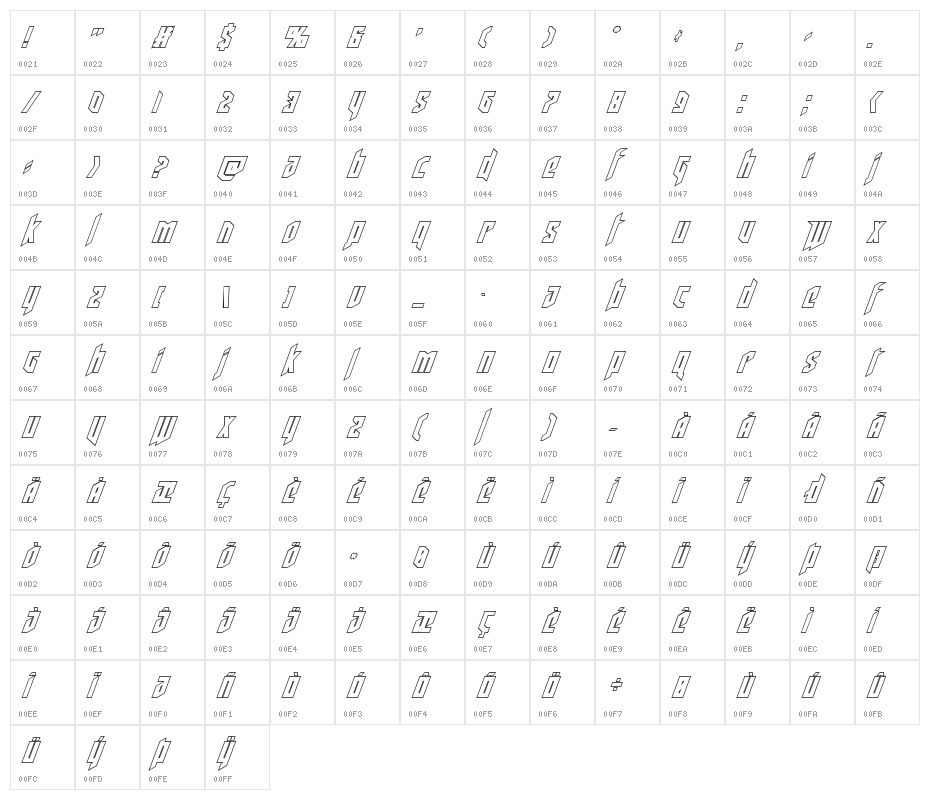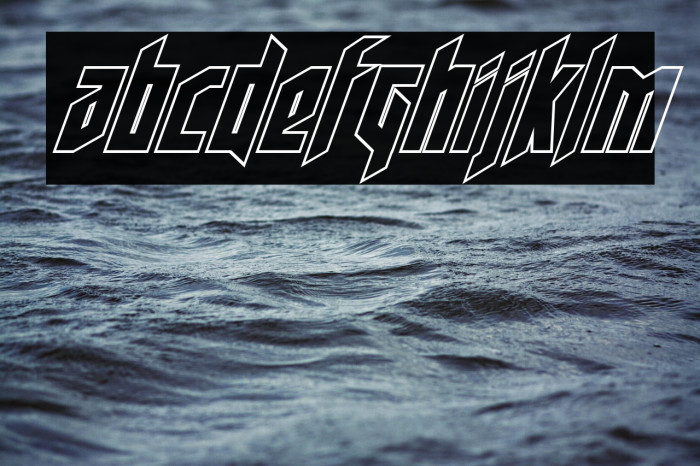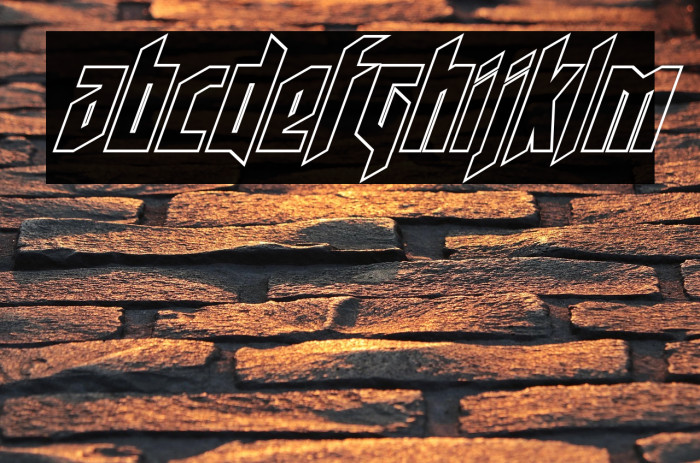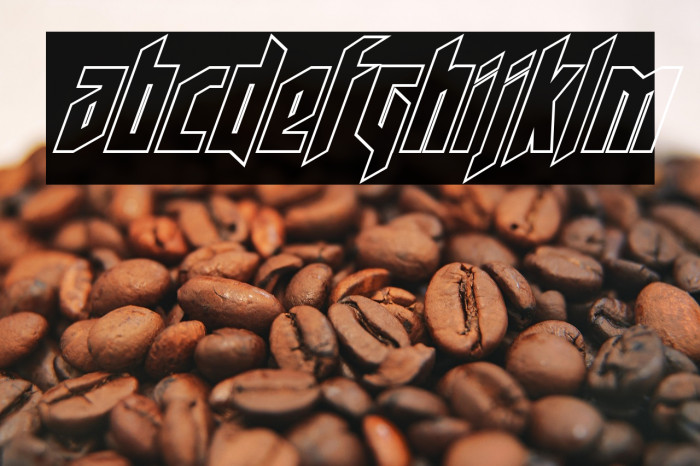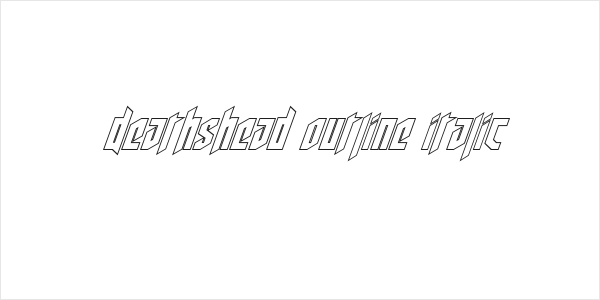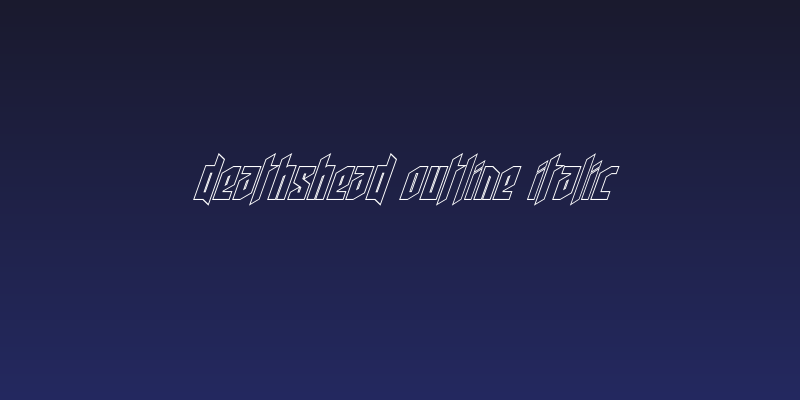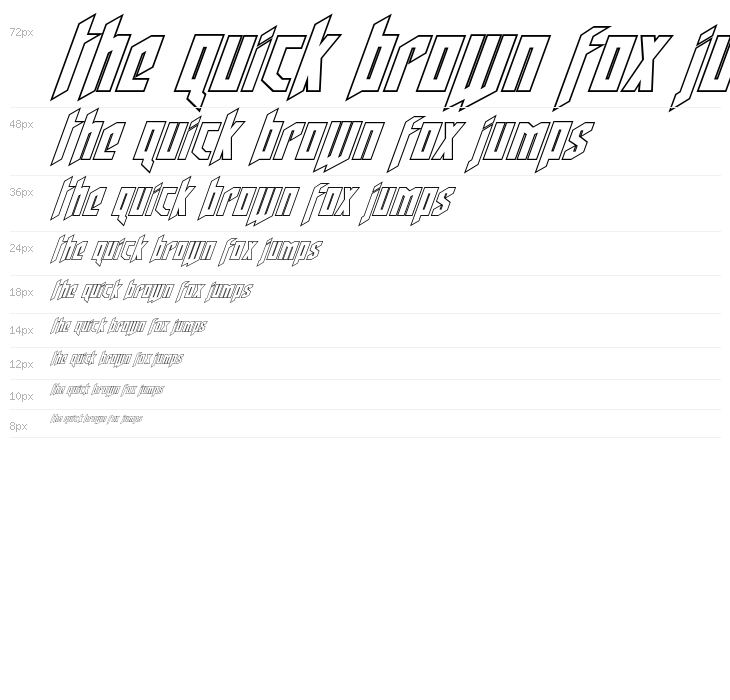
Deathshead Outline Italic Font
Deathshead Outline Italic Description
This font features a bold, angular design with a distinct outline style, giving it a sharp and edgy appearance. The italicized slant adds a dynamic and forward-moving feel, making it stand out with a sense of motion. Each character is crafted with precision, showcasing sharp edges and pointed tips that contribute to its aggressive and modern aesthetic. The uppercase and lowercase letters maintain a consistent style, while the numerals and special characters complement the overall design. This font's unique outline and italic characteristics make it suitable for projects that require a bold statement.